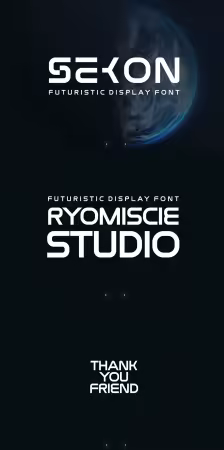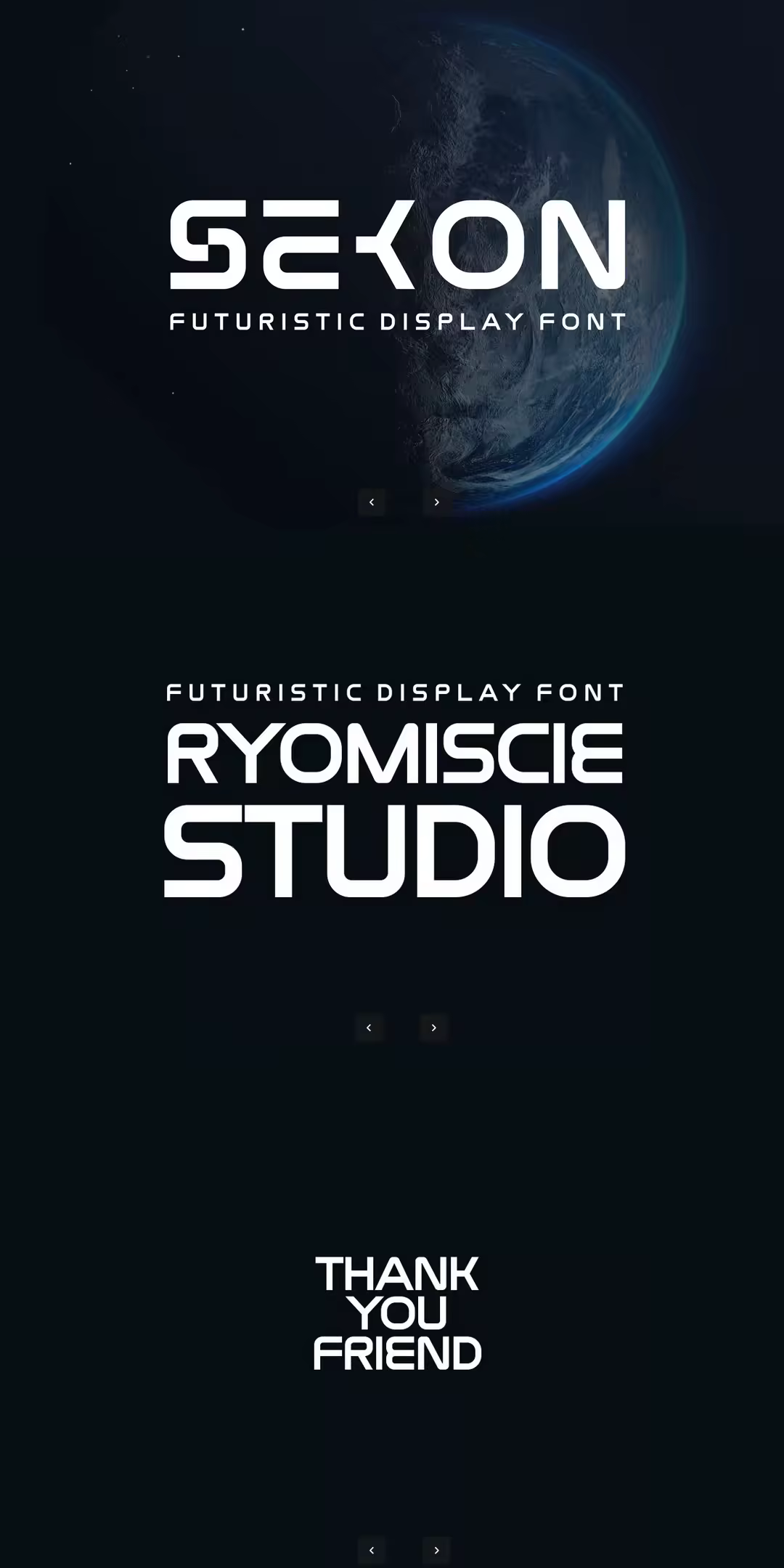
Introducing our new product Sekon Font - Futuristic Display Font
Sekon Font - Futuristic Display Font is a bold and authentic display font. The font is suitable for any branding project like logo, esport, and many more. outstanding in a wide range of contexts.